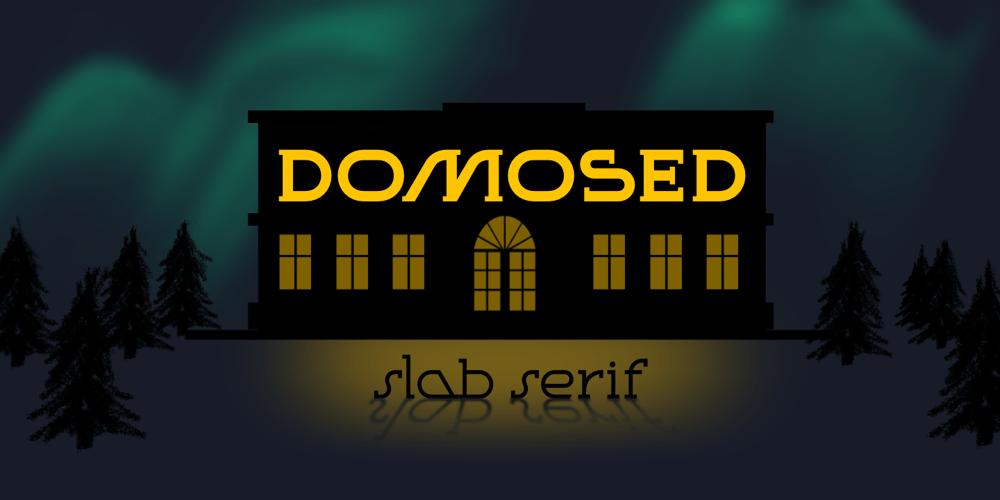
Domosed Slab Serif
Domosed Slab Serif font
Domosed Slab Serif Font Family was designed by Alex Etewut and published by Etewut. Domosed Slab Serif contains 2 styles and family package options. Domosed Slab Serif typeface was build during lockdown. As a result of home sitting it appears in two weights. It refers to Italian futurism when all generation understand global changes of industrial revolution. The forth industrial revolution appears with new rules but the main idea is the same – simplifying the processes. Causing the vibe of a bright phenomenon I want you to use my font to match to zeitgeist.